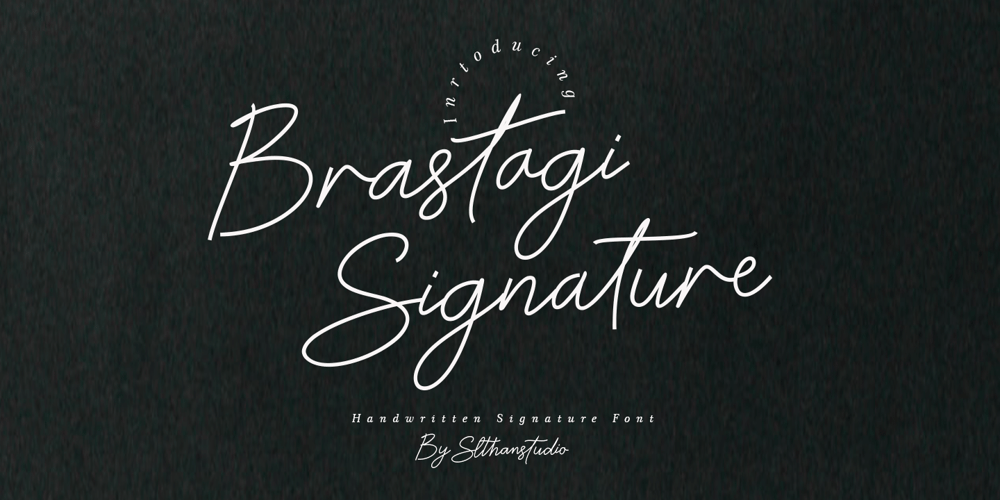
Brastagi Signature Font Family was designed by Nasrullah and published by Sulthan Studio. Brastagi Signature contains 1 styles and family package options. Brastagi Signature is a beautiful signature writing font. Its casual charm makes it seem incredibly simple, easy to read, and, ultimately, incredibly versatile. Brastagi Signature will look amazing in any context, whether it’s used in a busy background or as a stand-alone title!